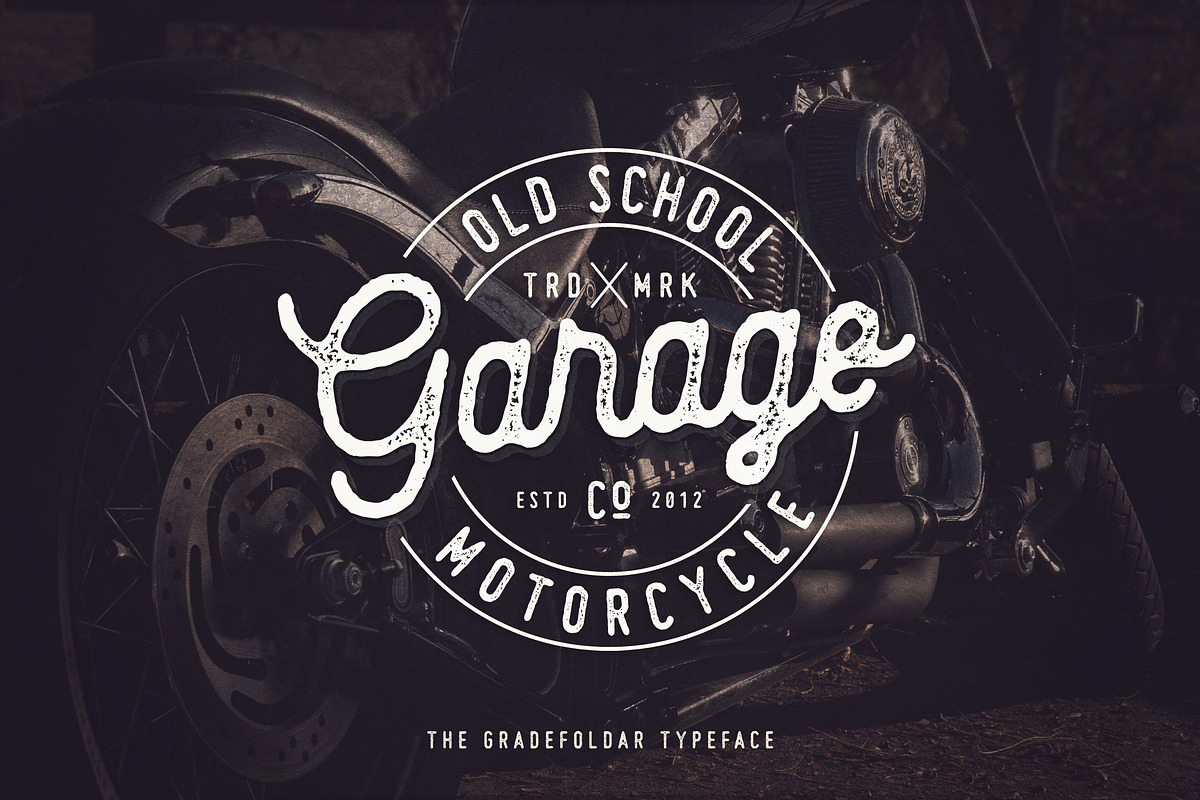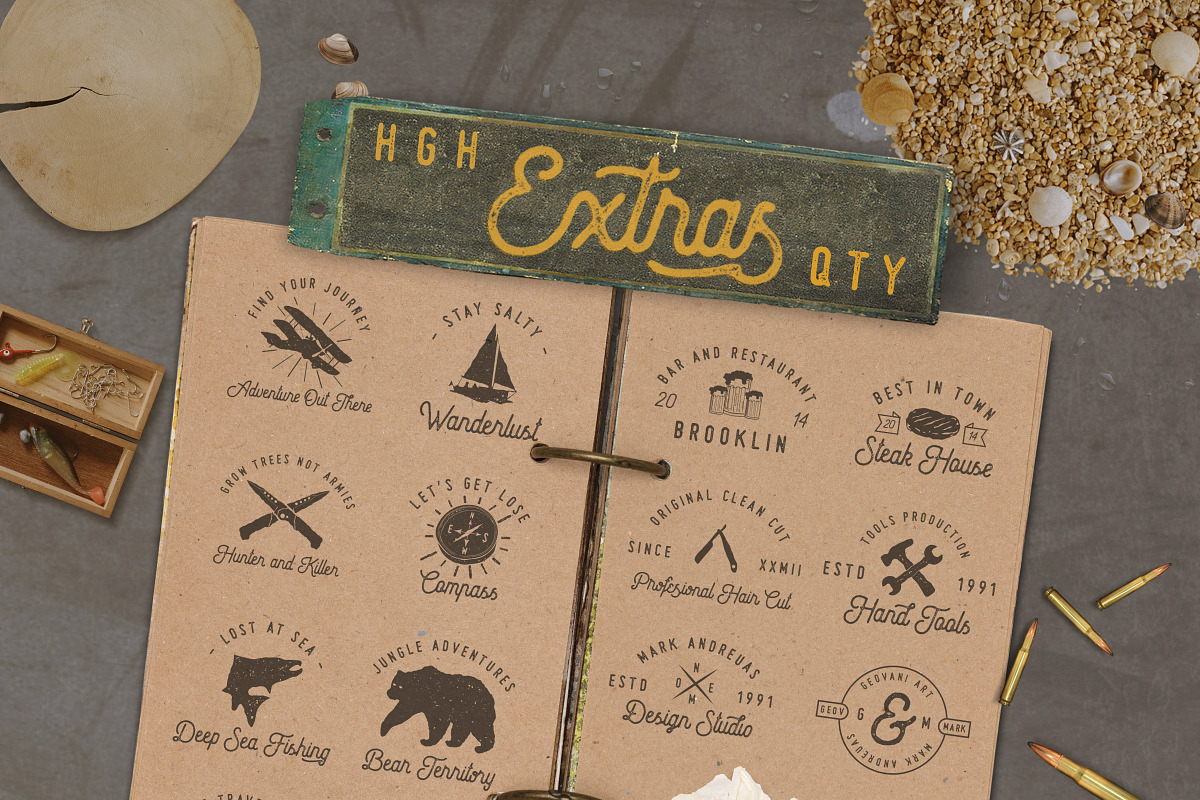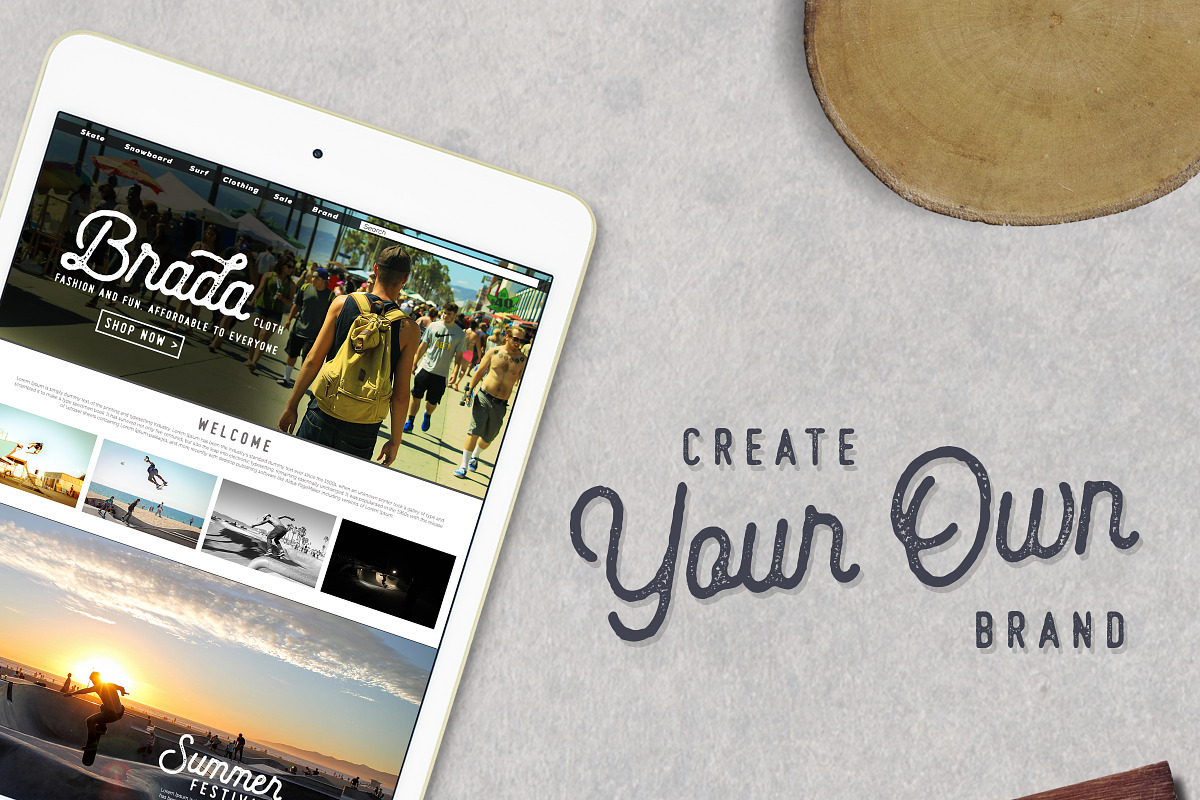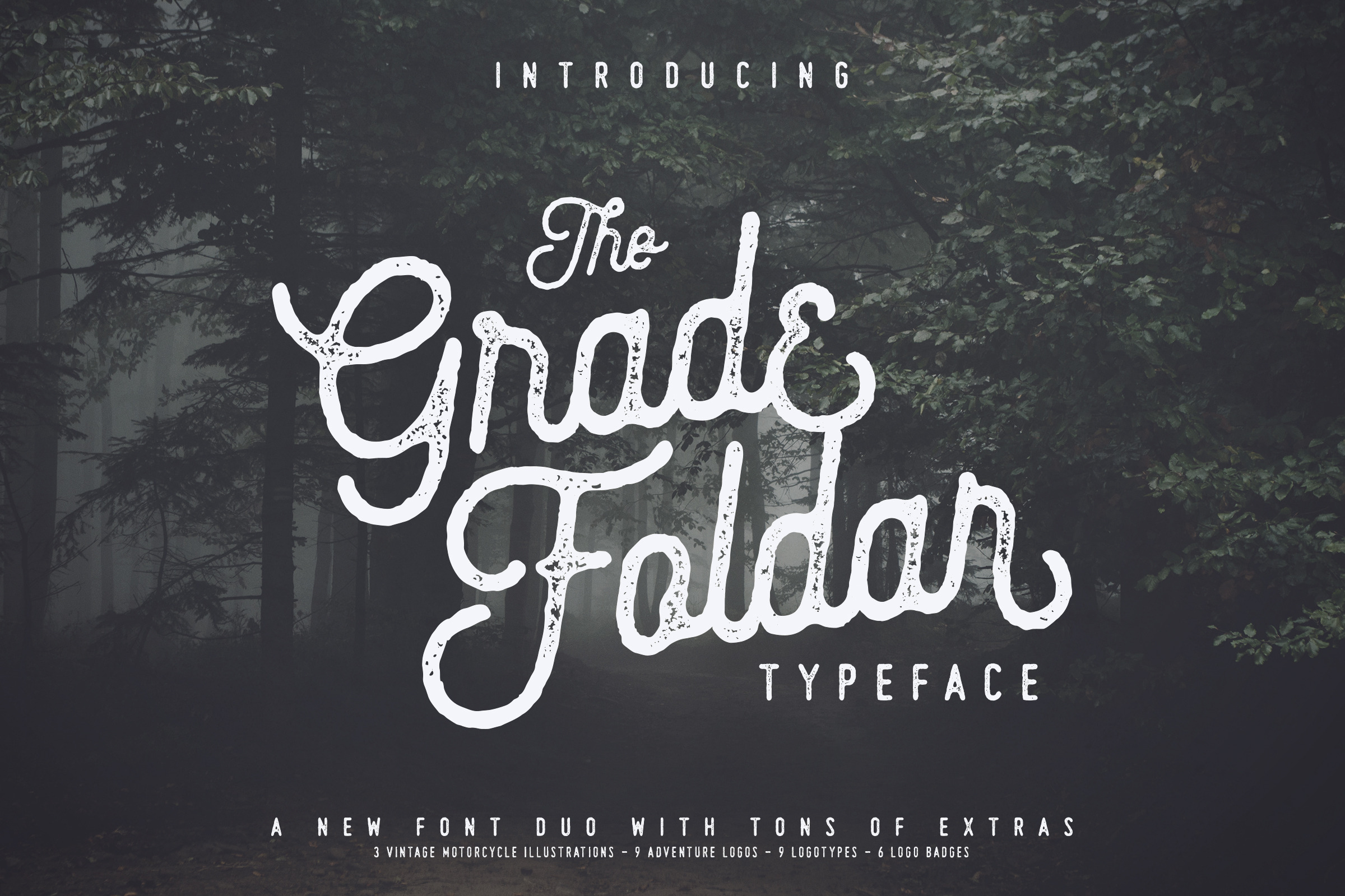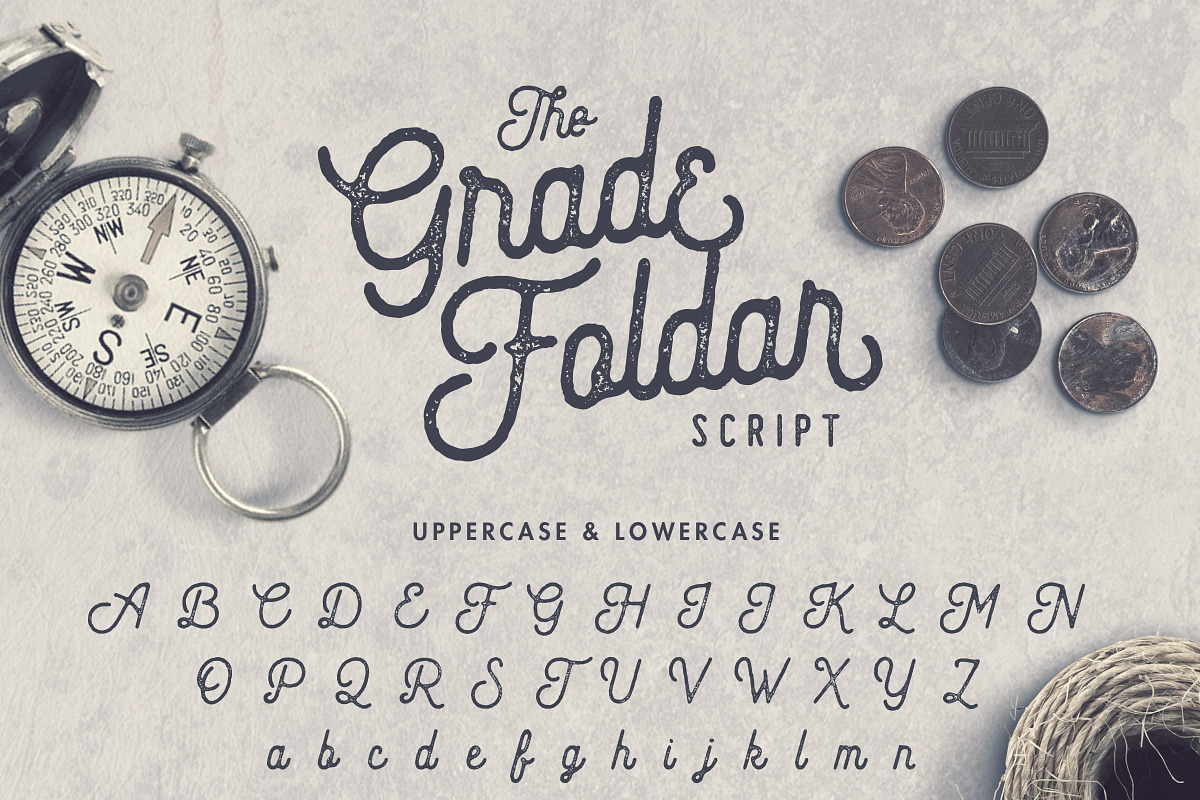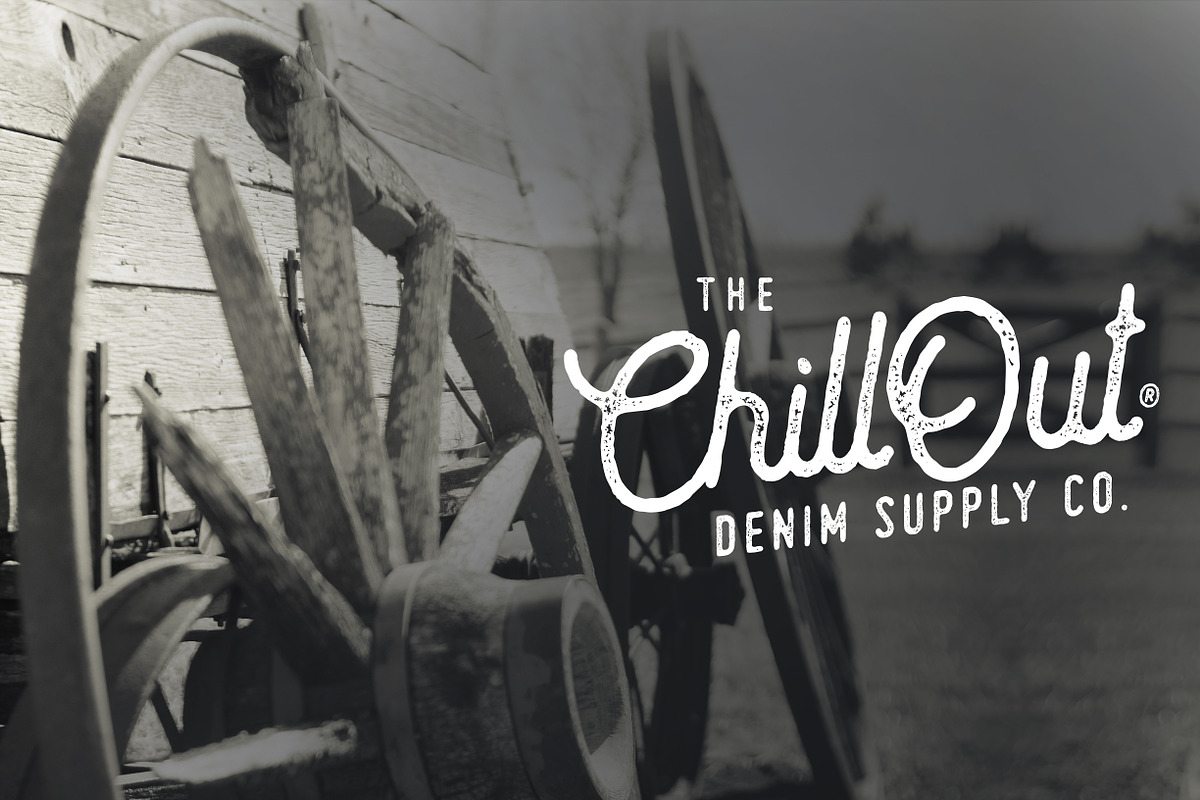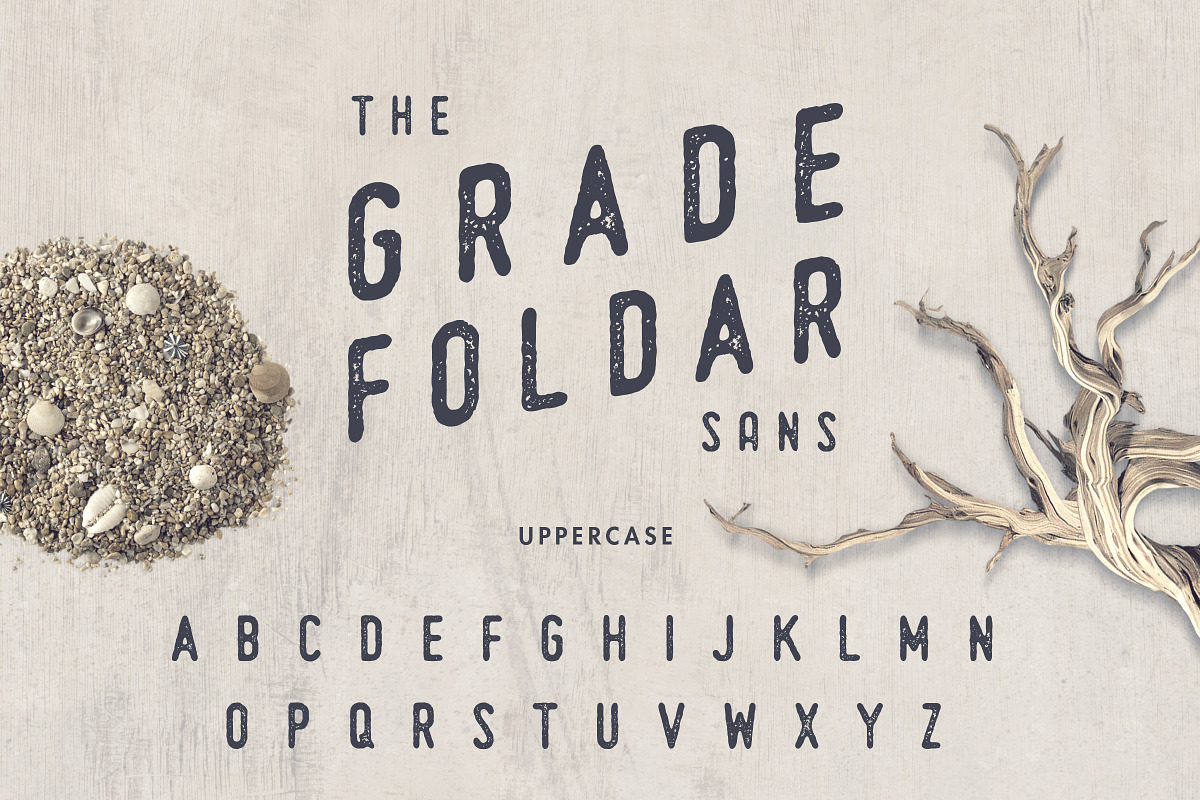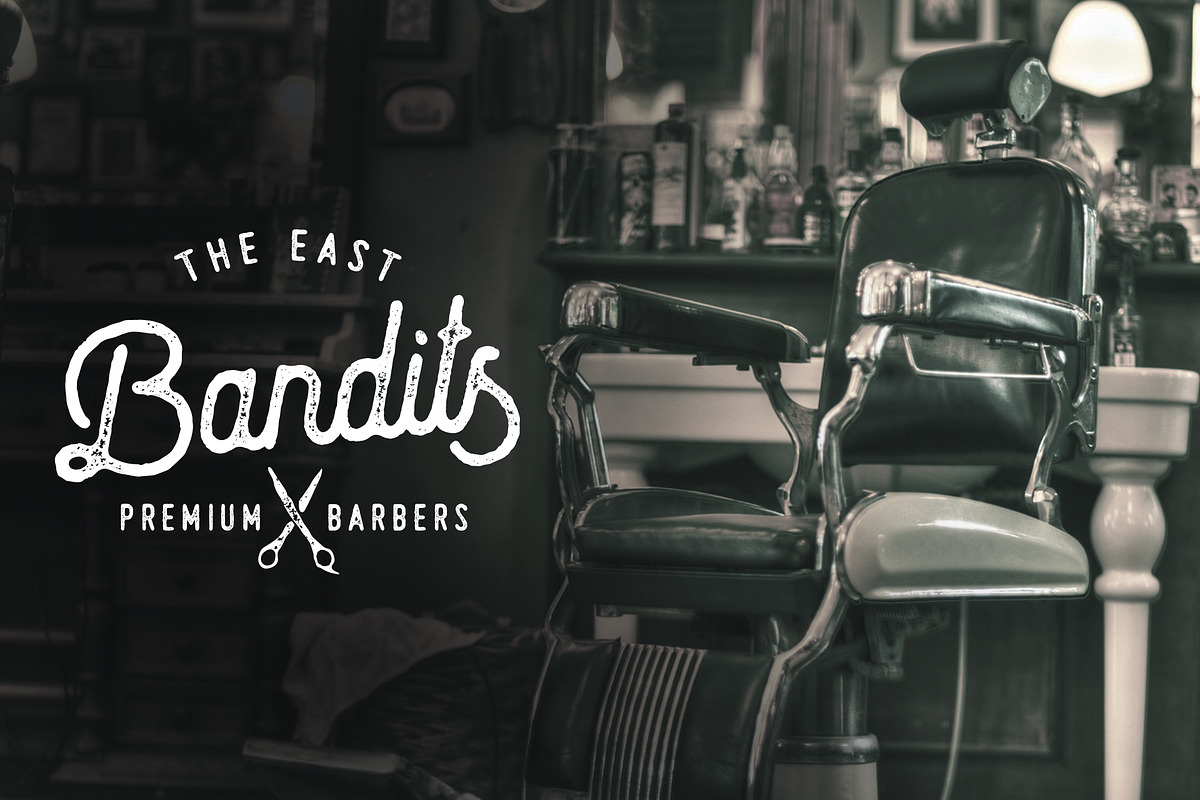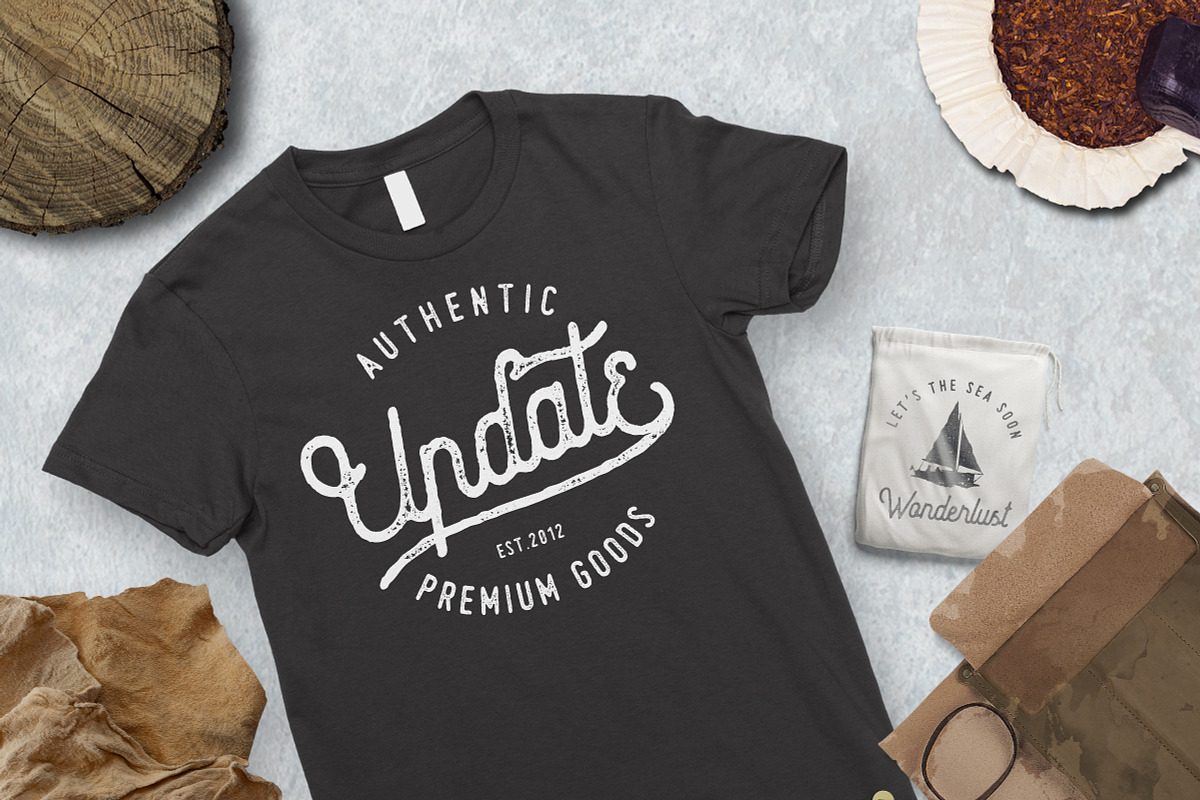
The Gradefoldar (2 fonts + 27 Bonus)
The Gradefoldar Typeface Duo
The Gradefoldar Typeface is a handcrafted and rough typeface duo with tons of extras. The font includes uppercase and lowercase, initial and terminal letters, a lot of alternates and swashes, punctuation and symbols, ligatures and multiple language support.